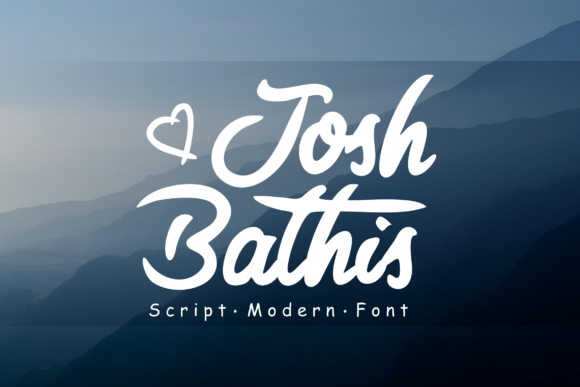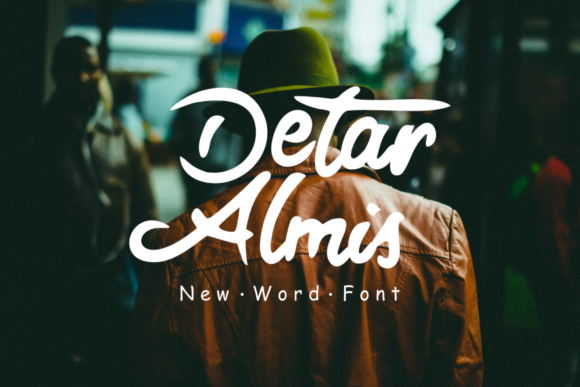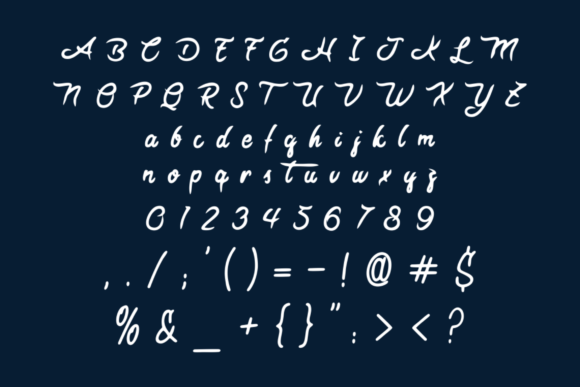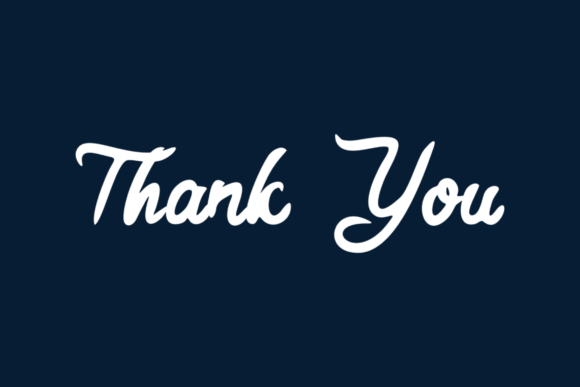
Josh Bathis Font
About Josh Bathis Font
Josh Bathis is a bold and authentic handwritten font. The font is suitable for any branding project like logos, t-shirt printing, sports, and more. It will look outstanding in a wide range of contexts.